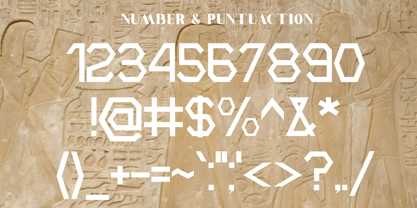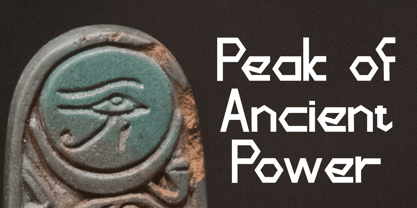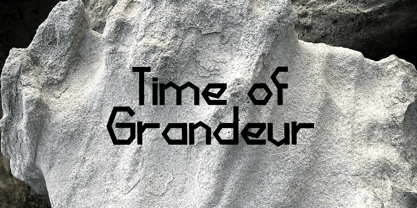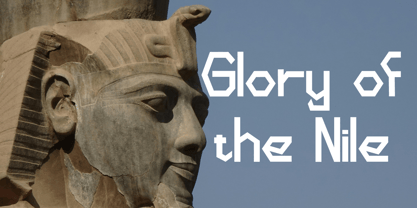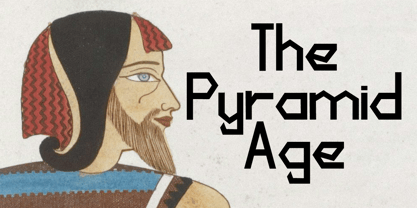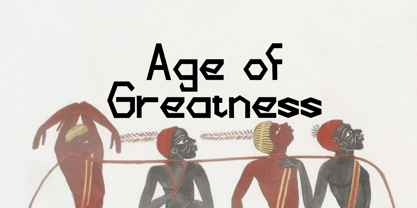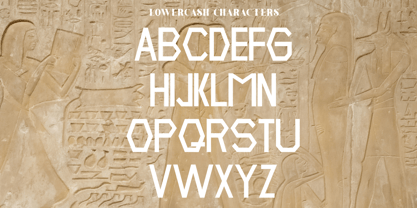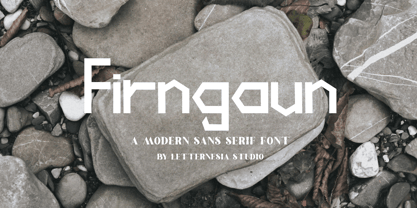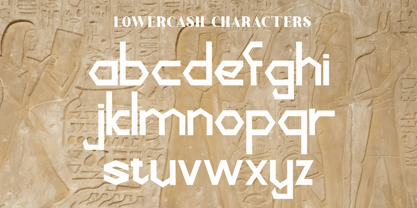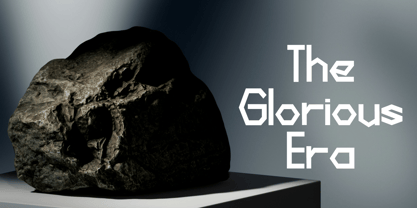
Firngaun
by Letternesia studio
The Firngaun Font Family was designed by Ta Siyo and published by Letternesia studio. Firngaun contains 2 styles and family package options. More about this family
Firngaun embodies the timeless glory of Ancient Egypt. Inspired by the power and prestige of the Pharaohs, this typeface blends historical grandeur with modern elegance. Each curve and line reflects strength, dignity, and luxury — capturing the spirit of a civilization that once ruled the sands of time. Perfect for royal-themed projects, premium branding, posters, luxury logos, or any design seeking a touch of mystery and majesty. With its bold presence and refined details, Firngaun stands not just as a font, but as a living symbol of greatness reborn.